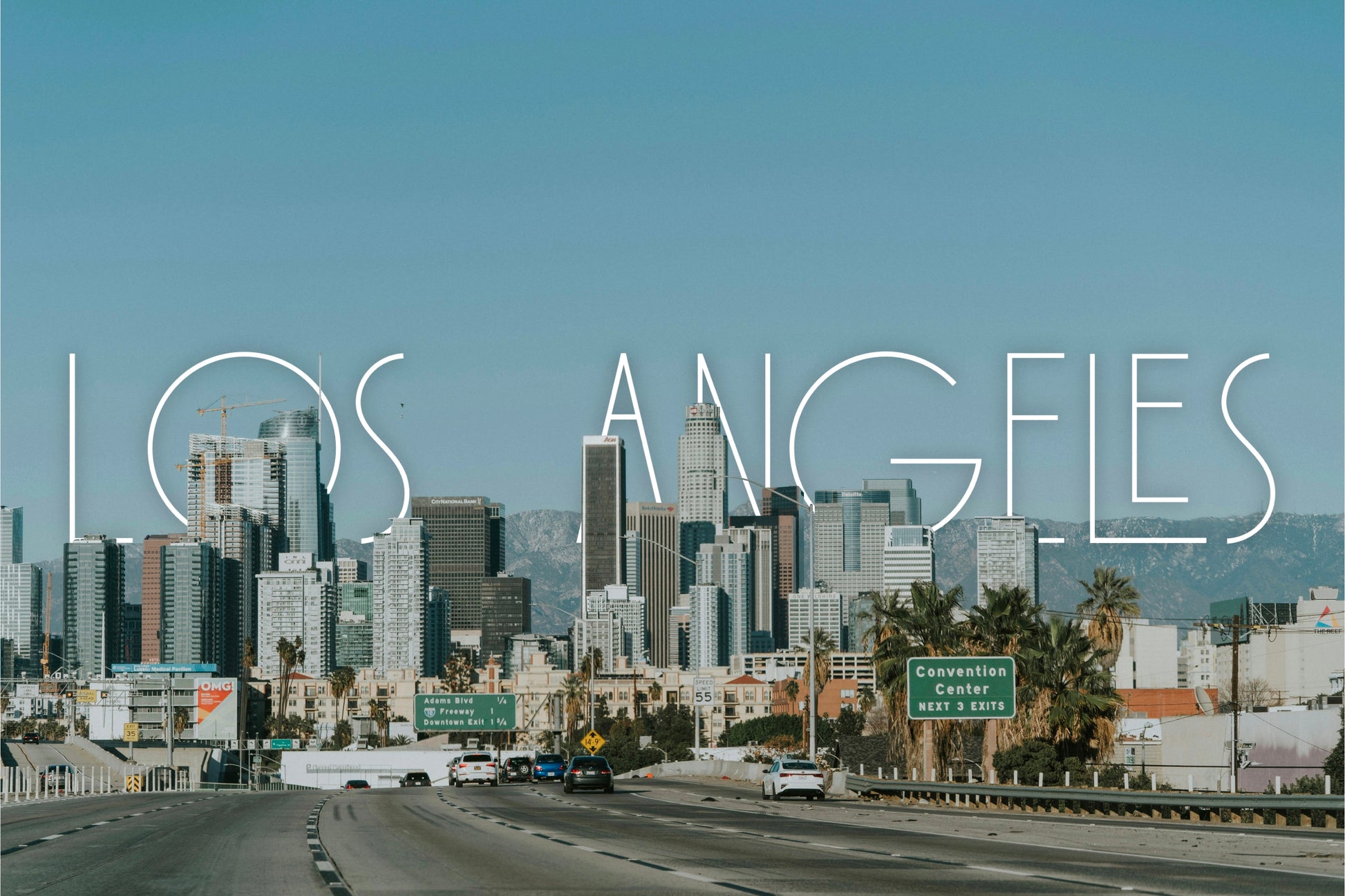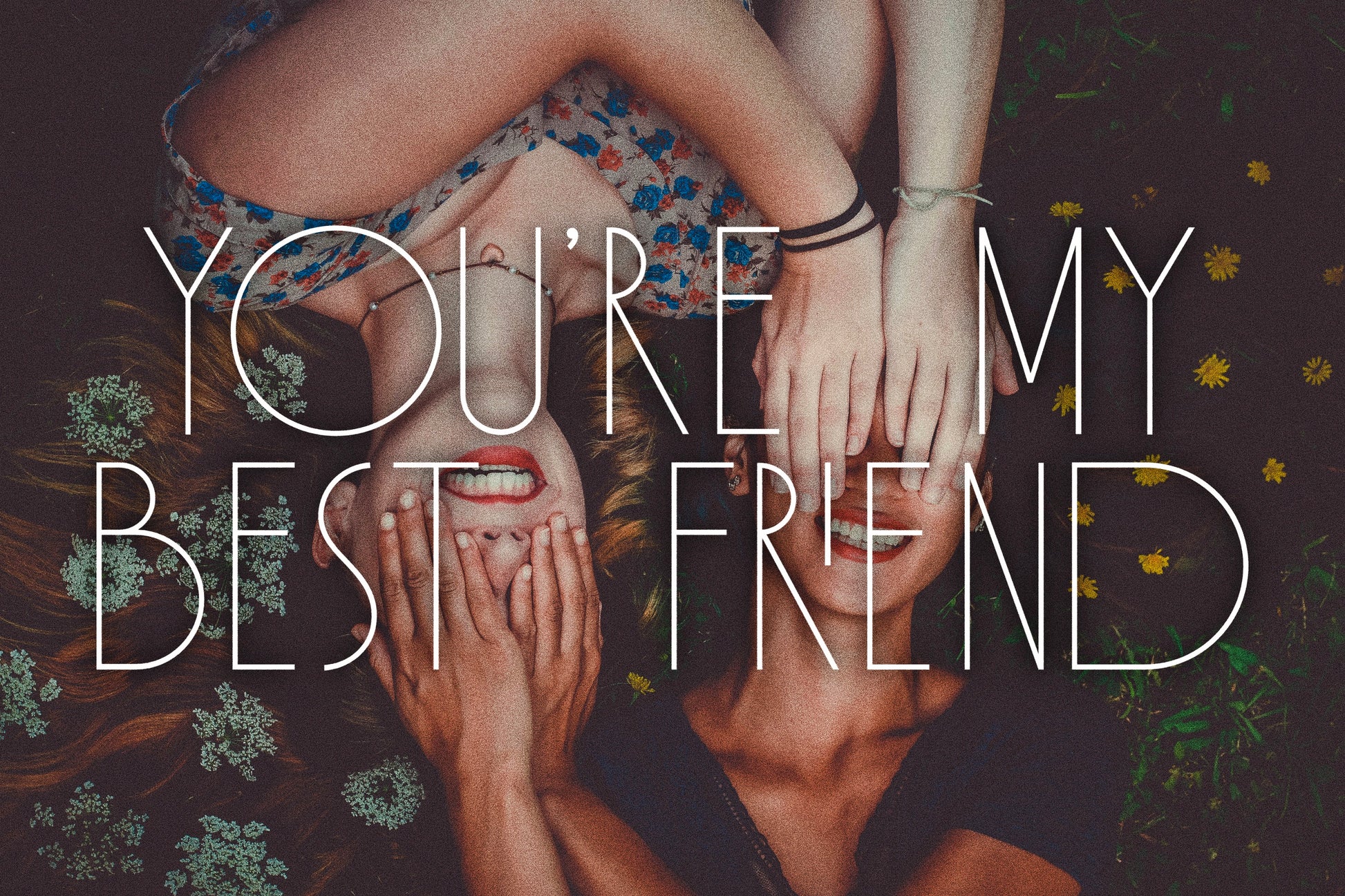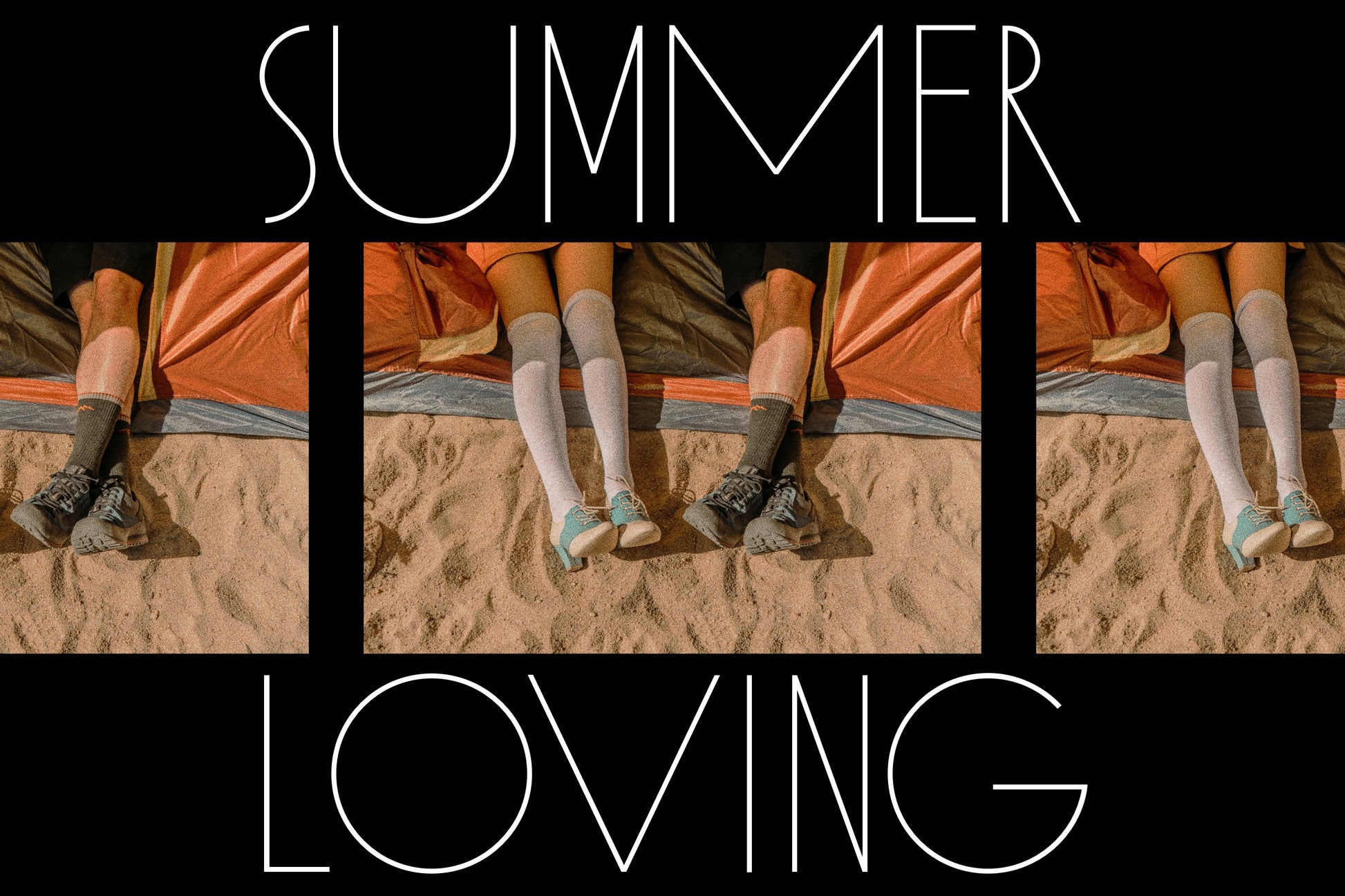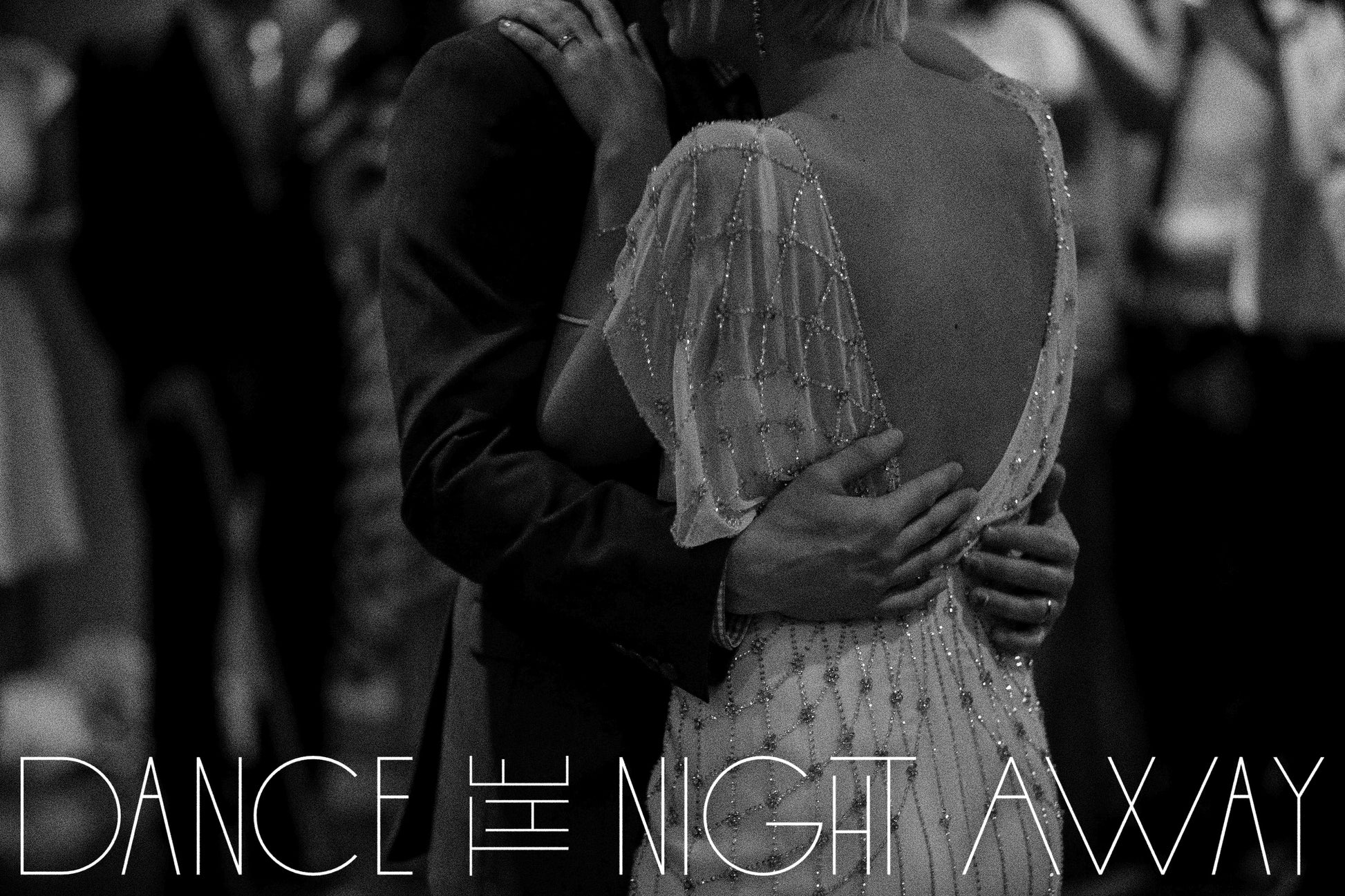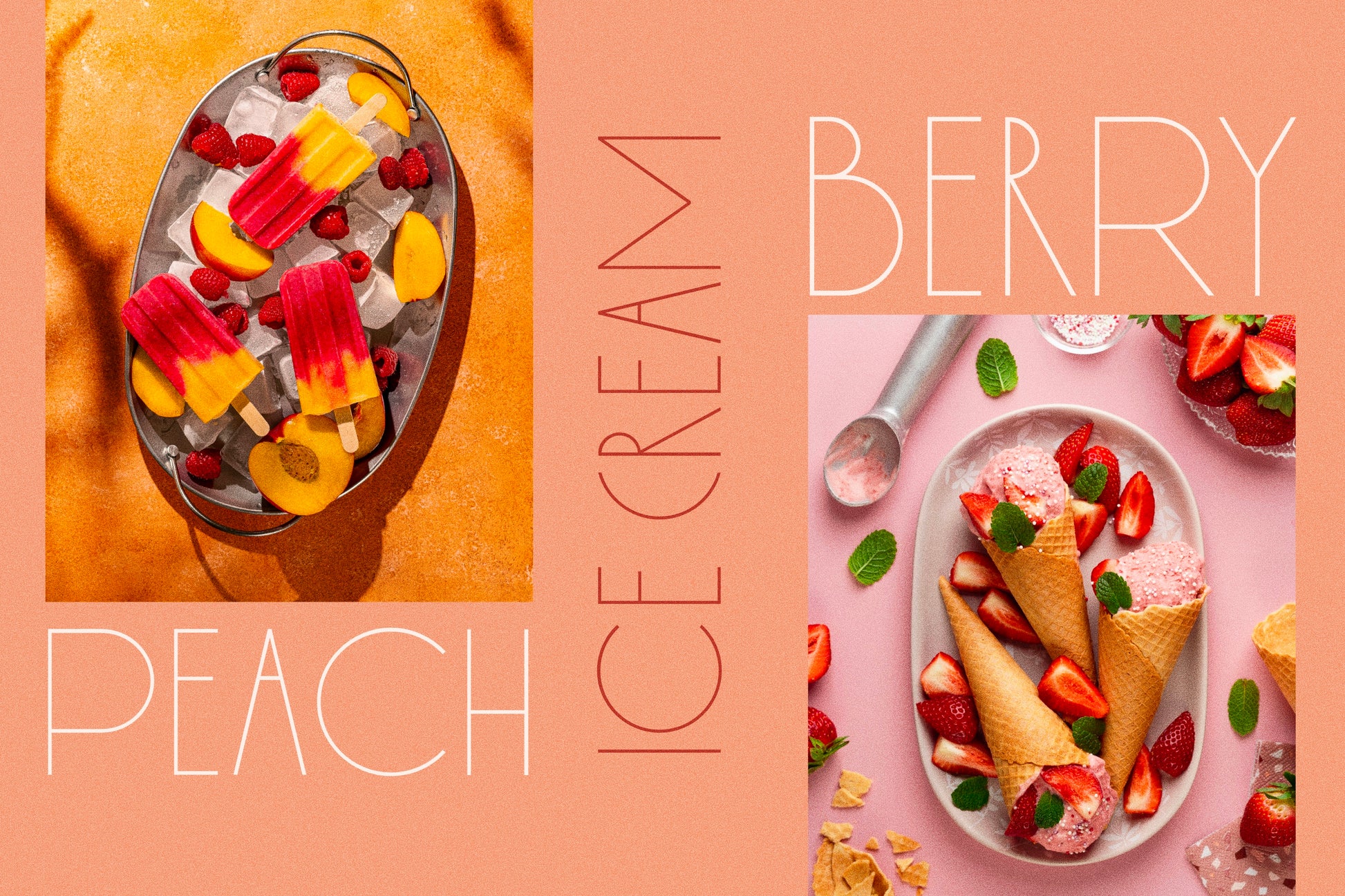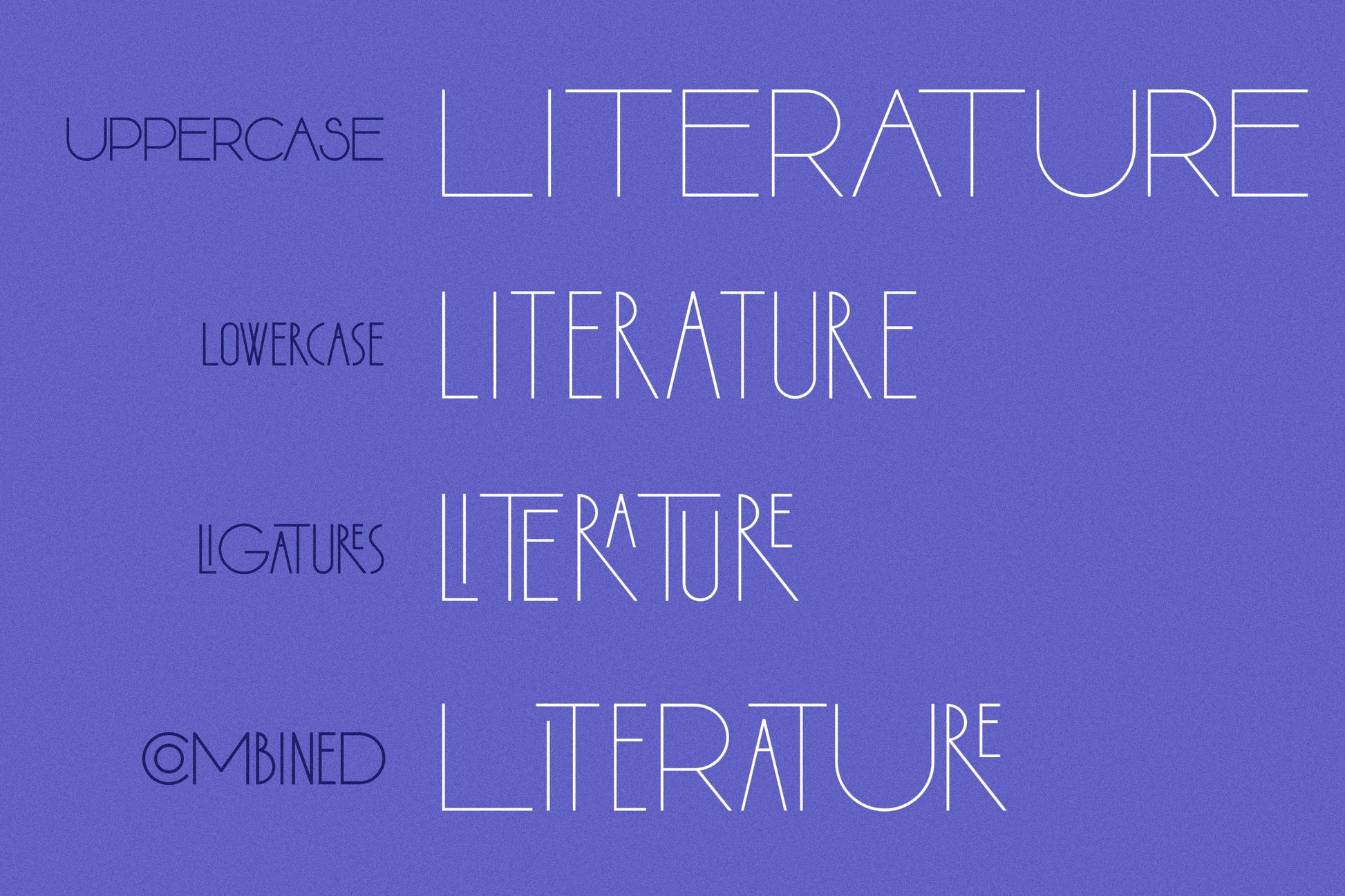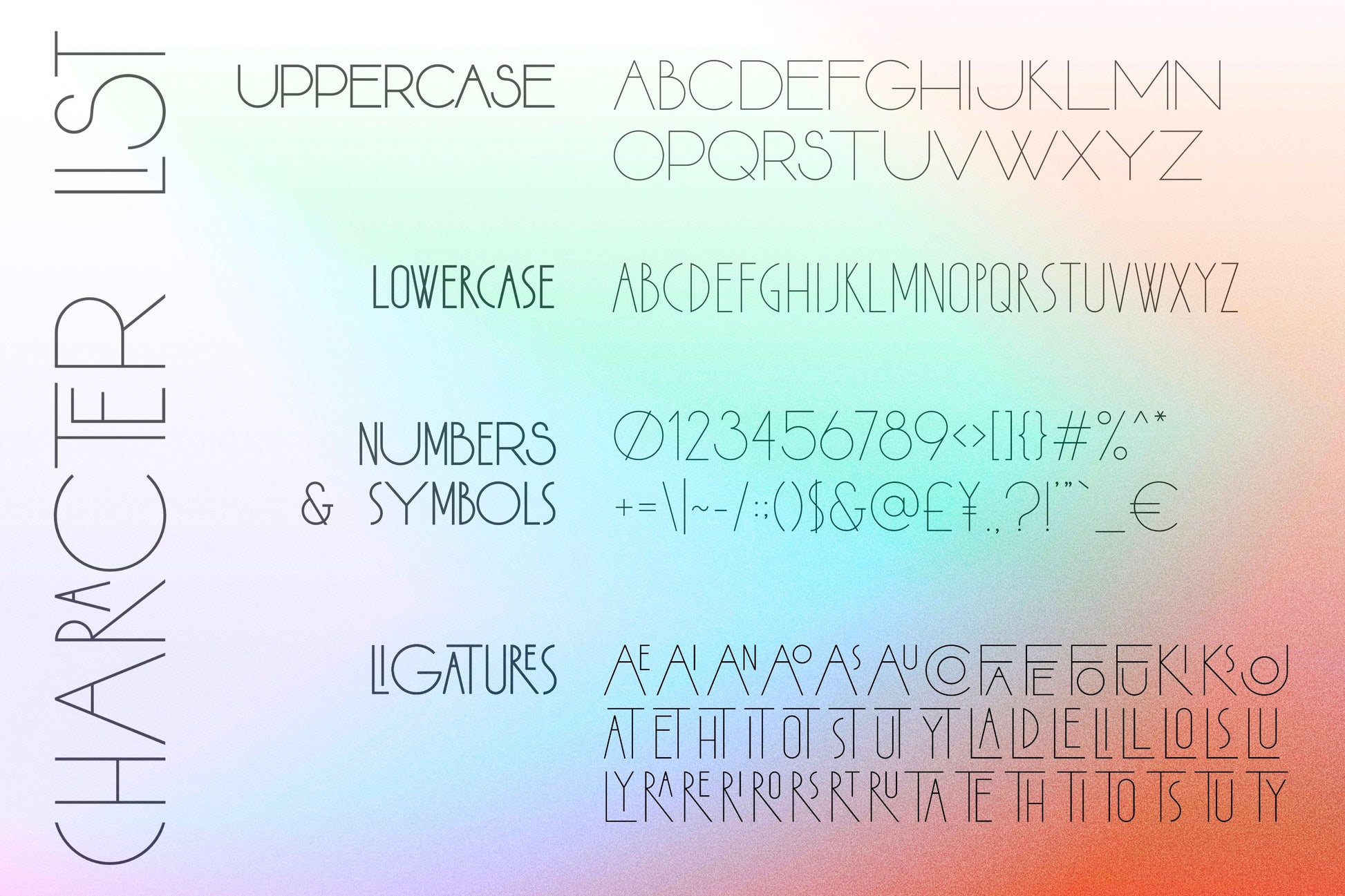
Downtown California Modern Handwritten Font
Introducing the Downtown California font! This is a hand drawn, modern serif style, perfect for any of your designs, posters, magazines, mockups, stickers, t-shirts, merchandise, quotes, and much more.